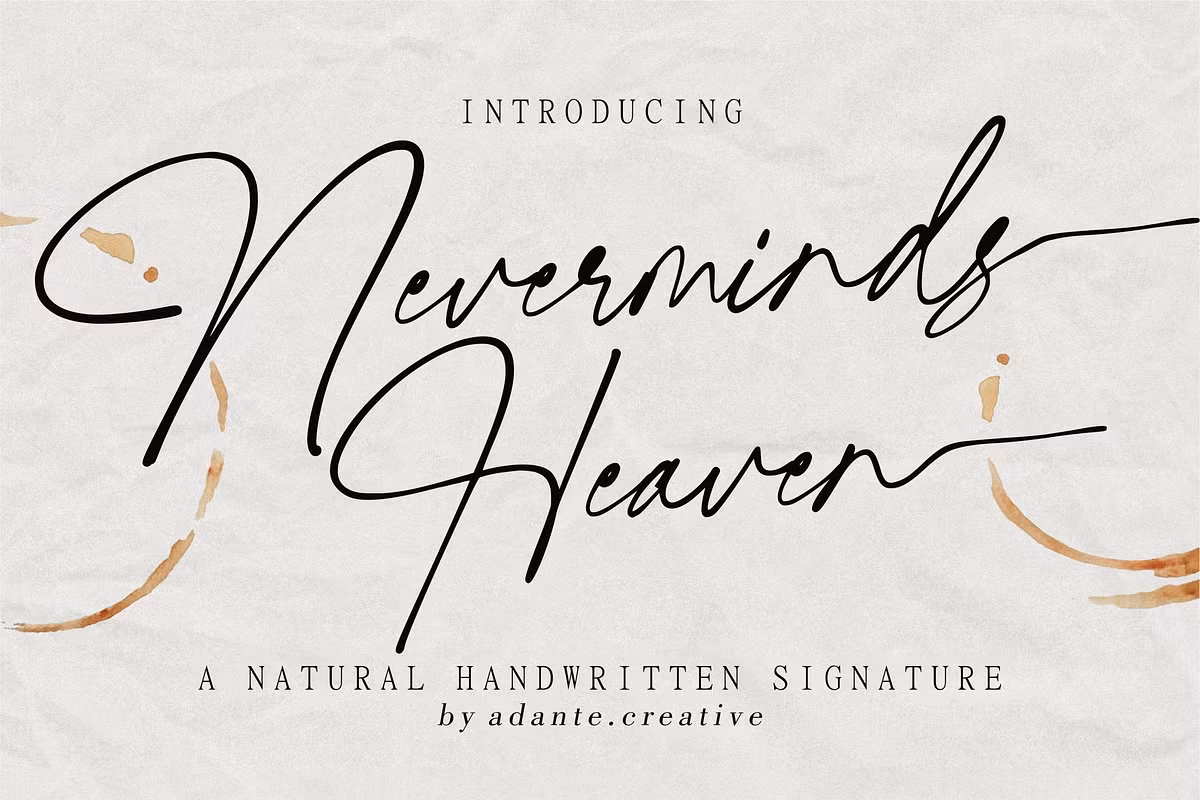
Drift into a dreamy world of design with the Neverminds Heaven Font Free Download — a soft, expressive typeface that feels like a whisper on paper. With its flowing curves and handwritten charm, this font is perfect for lyric art, love letters, quotes, book covers, and lifestyle branding that speaks from the heart.
Neverminds Heaven combines the raw beauty of hand lettering with a smooth, modern touch — ideal for projects that need to feel personal, emotional, and a little poetic. Whether you're crafting content for a blog, podcast, or a sentimental gift, this font adds soul and style in every stroke.